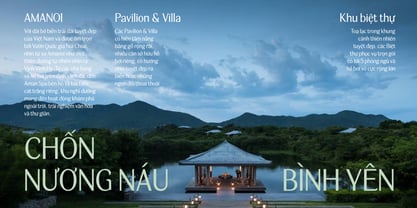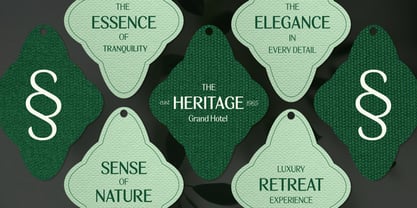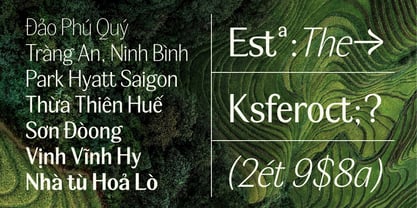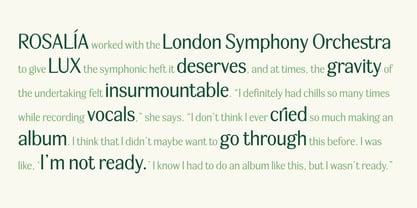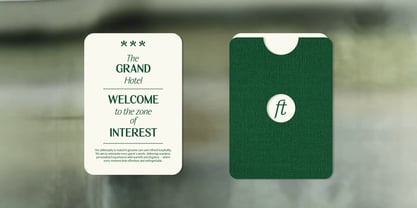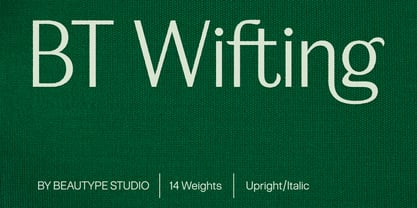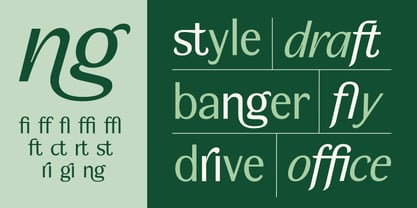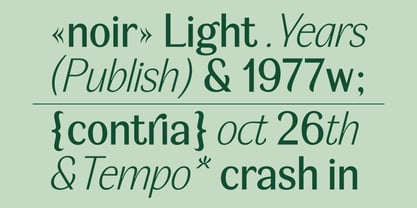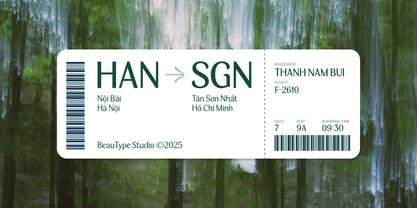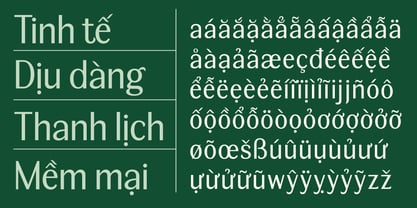
BT Wifting
The BT Wifting Font Family was designed by Nam Bui and published by BeauType. BT Wifting contains 14 styles and family package options. More about this family
BT Wifting is a refined sans-serif typeface that captures the essence of modern travel and serene luxury. Its geometry is rooted in modernist clarity, with clean lines and subtle curves draw inspiration from the graceful form of the lotus flower, evoking balance, calm, and sophistication. Designed for airways, resorts, and high-end hospitality brands in mind, BT Wifting blends contemporary elegance with a sense of effortless motion—making it the perfect choice for identities that aspire to inspire journey, comfort, and timeless beauty.